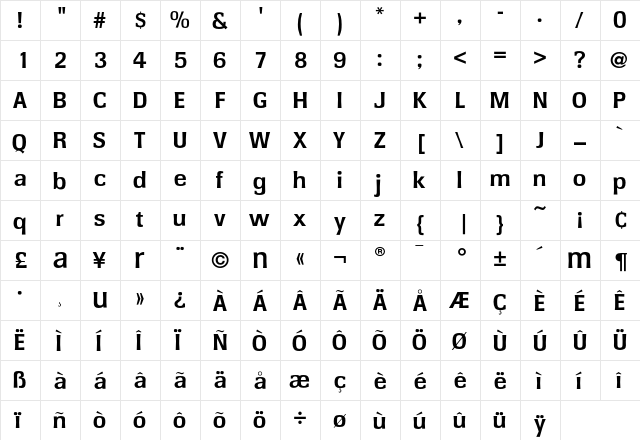
Cartel-Mdm Regular
Design Context for Cartel-Mdm Typeface
Cartel-Mdm offers clean, dependable letterforms without strong stylistic allegiance, making it a practical choice for designers who need flexibility.
Pro Tip: Use Cartel-Mdm in both headline and body roles to test its range before committing to a single application.